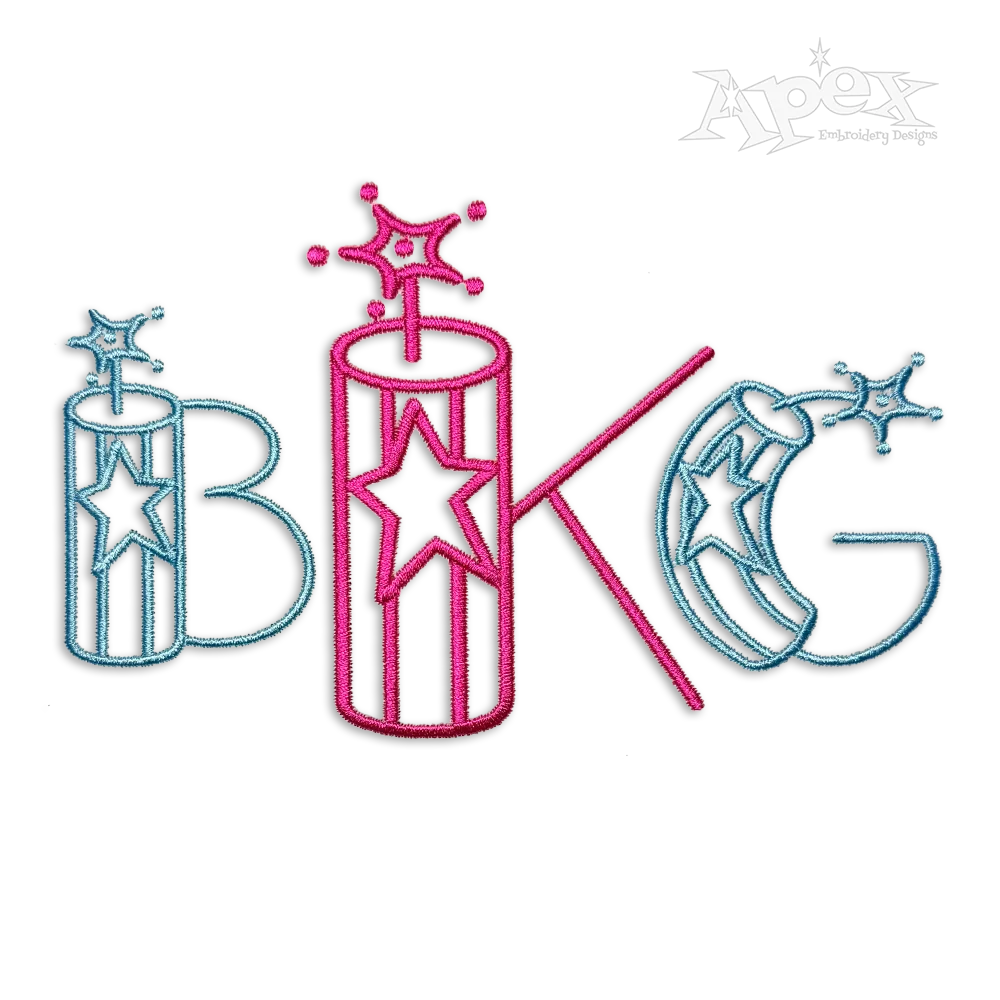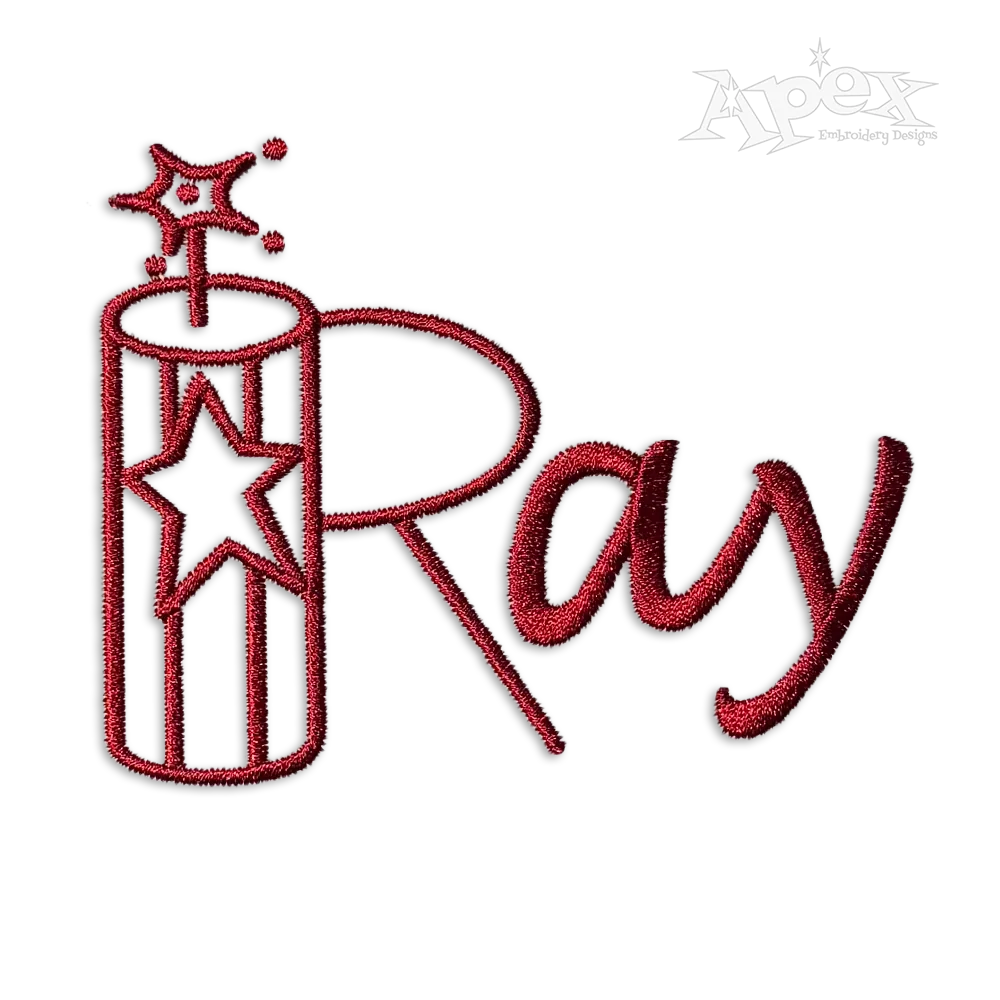
Firecracker Embroidery Fonts
There is an unmistakable thrill in the crackle of summer evening air—that electric anticipation right before twilight dissolves into dazzling bursts of light and color. Inspired by that joyful exuberance, the Firecracker Embroidery Font brings an explosion of festive character directly to the machine embroidery hoop. Digitized with striking, animated curves, playful flourishes, and an undeniable sense of momentum, this bold uppercase alphabet transforms standard threadwork into an artful celebration. Whether crafting bespoke pieces for Independence Day gatherings, lively summer reunions, or spirited personalized gifting, each letterform radiates pure handcrafted vitality and festive charm.
Project Ideas for Firecracker Embroidery Fonts
Infuse classic textiles with whimsical holiday energy using these spirited project concepts:
- Festive Table Linens: Stitch crisp initials onto the corners of gingham picnic napkins, linen bread baskets, or canvas barbecue aprons for celebratory gatherings.
- Summer Holiday Apparel: Create unforgettable Fourth of July t-shirts, patriotic sun dresses, denim jacket backpieces, and toddler rompers that pop with festive personality.
- Beach & Boat Totes: Personalize heavy-gauge canvas duffels, poolside carryalls, and nautical boat bags with vibrant, oversized monograms.
- Heirloom Picnic Quilts: Embroider the center medallion or corner blocks of outdoor summer quilts and cottage throws for treasured seasonal keepsakes.
- Bespoke Celebration Gifts: Elevate hostess wine bags, patriotic ribbon sashes, and festive pennants with bright, personalized lettering that makes any occasion feel bespoke.
The lively geometry of the Firecracker letterforms lends itself effortlessly to creative placement strategies across diverse textiles:
- Center Chest: Position a single 4-inch or 6-inch capital front and center on crewneck sweatshirts, children's tees, or casual summer tanks for maximum graphic impact.
- Corner Diagonal: Angle a 3-inch initial 1.5 to 2 inches from the hemmed corner of cloth napkins or picnic throws, allowing the dramatic flick of the letterform to echo the natural drape of the fabric.
- Tote Bag Pockets: Center a 4-inch monogram on the exterior patch pocket of a canvas tote for clean, tailored visibility.
- Cuff and Hemline Flourishes: Frame short sleeves, jacket hems, or bath sheet borders with playful monogram accents that catch the eye in motion.
Firecracker Embroidery Fonts Craft & Letterform Details
Every curve and flare in the Firecracker alphabet has been meticulously digitized to harness the natural luster of embroidery thread. Rather than relying on rigid, static geometric lines, each capital letter features organic swells, tapered terminal sparks, and dynamic stroke angles that simulate the kinetic pop of fireworks bursting across the night sky.
Beneath the surface, purposeful stitch sequencing and tailored underlay architectures anchor each letter securely, preventing push-and-pull distortion while ensuring that satin columns maintain their bold, smooth edges. Generous satin stitch flow paths capture ambient light from every vantage point, creating a luminous, dimensional finish that feels rich to the touch and stands resilient against repeated wear, washing, and celebration.